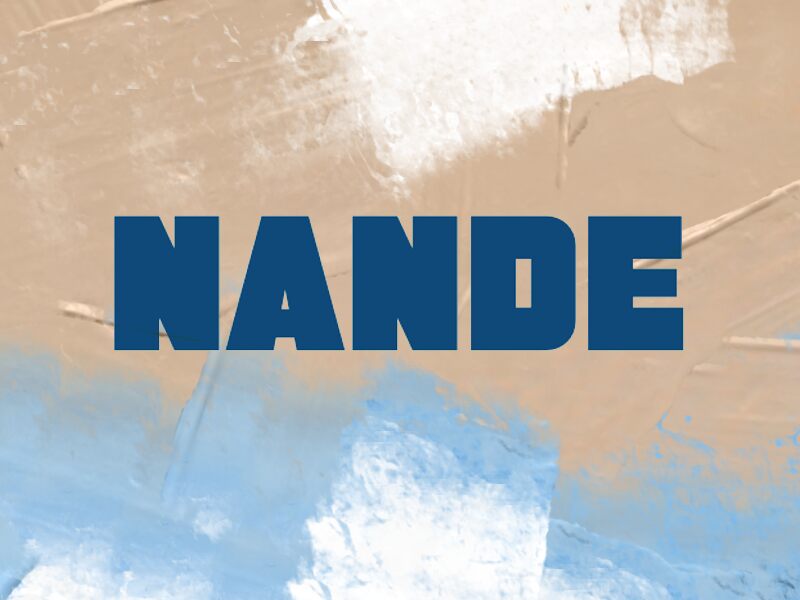
NANDE
Nande font by wep is a free sans serif typeface with a bold, blocky presence and distinctive square “punched-out” counters that feel almost like tiny pixels. Its heavy, rounded rectangles pack tightly together, creating a dense, rhythmic texture that reads as both retro and futuristic. The result is a chunky, tactile look—like letters carved from solid plastic—while still staying clean and legible at larger sizes.
Using Nande, you get a statement-making look that shines on posters, gaming graphics, logos, merch, social banners, and bold app titles. This free font thrives wherever you need loud, compact lettering that grabs attention without fussy detail. Pair Nande with a light, neutral grotesque for body text and keep Nande for the big, punchy words to let its character do the heavy lifting.